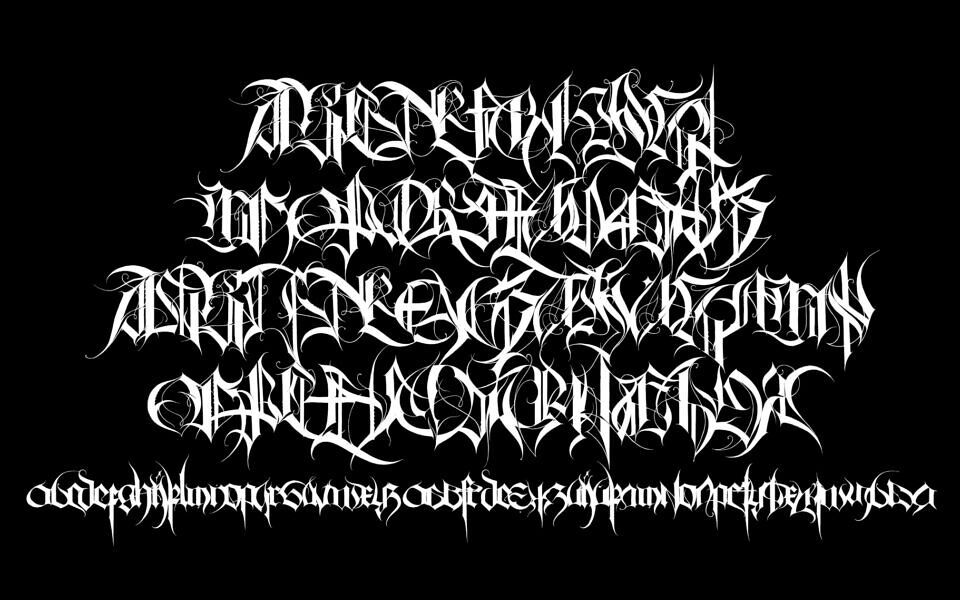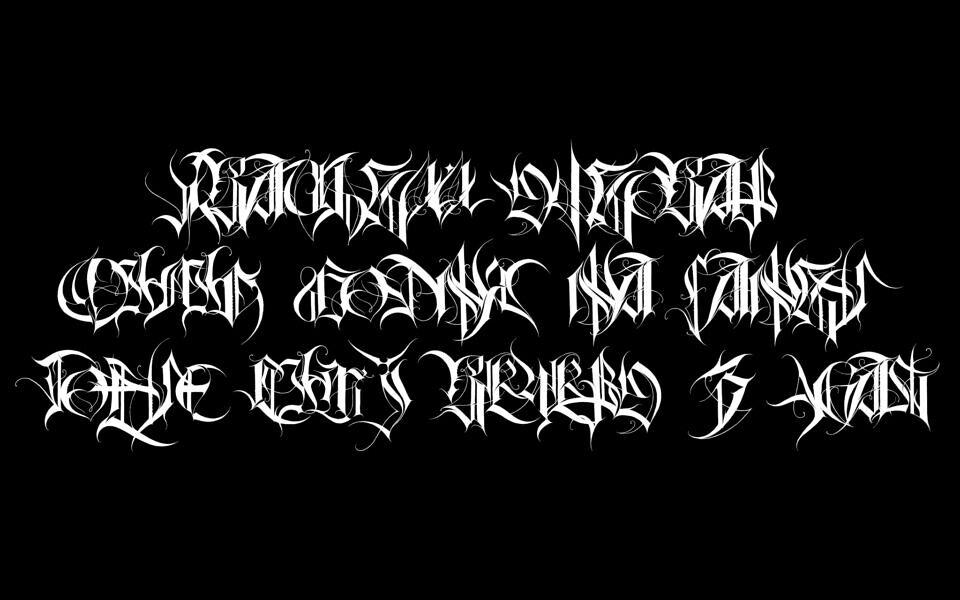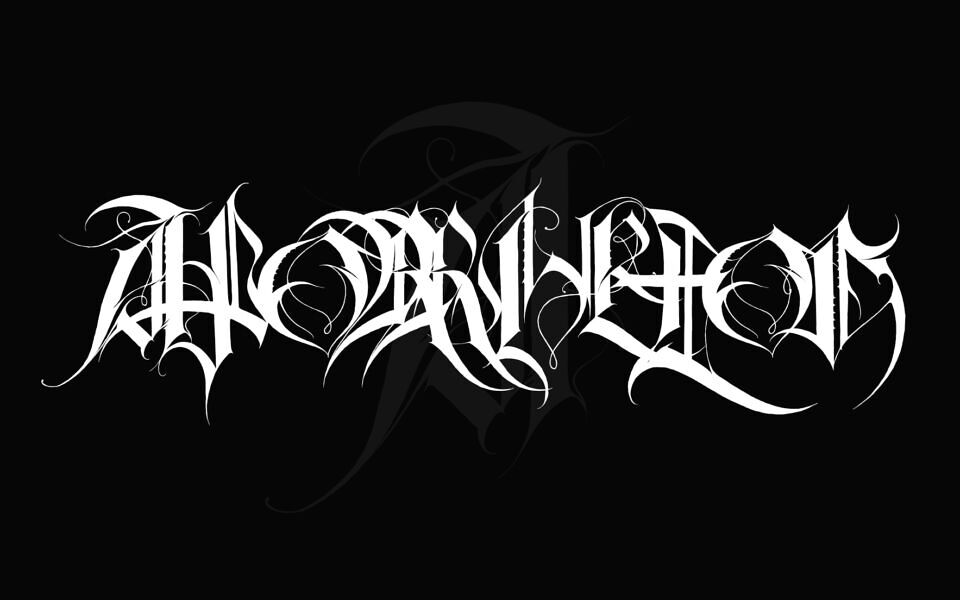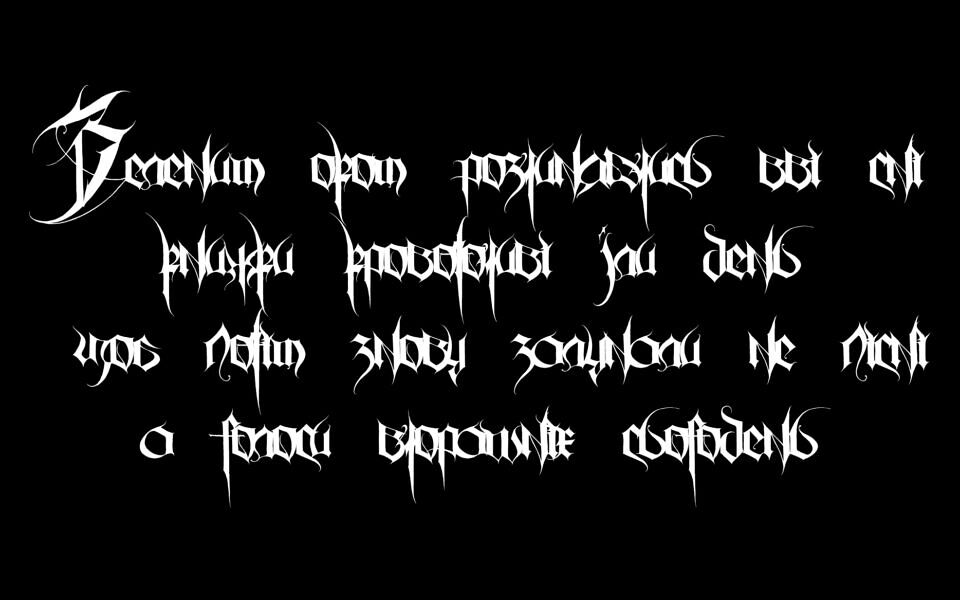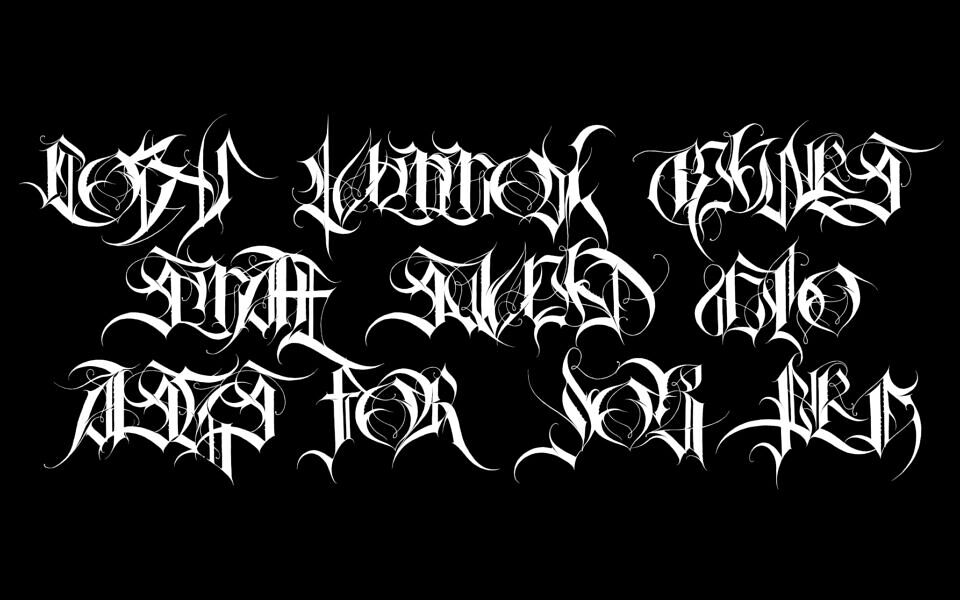
Aporrheton is a free blackletter font with a dark, intricate vibe, perfect for adding a gothic edge to your projects. Inspired by medieval calligraphy, its sharp, ornate letterforms bring a sense of mystery and rebellion.
With a nod to historical typography, Aporrheton blends old-world charm with a modern twist, making it ideal for posters, tattoos, or underground zines. Its dense, swirling design captures attention, turning any text into a bold statement.